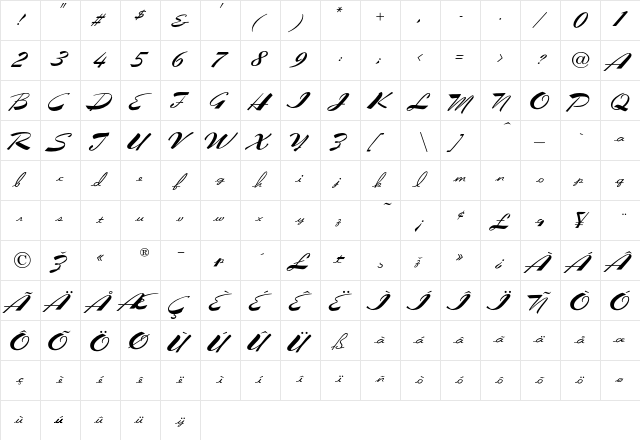
Flare Regular
| Foundry | Digitized by Dan X. Solo. Software Dover Publications, Inc |
Design Context for Flare Typeface
Flare is a composed and adaptable typeface that performs quietly and consistently across a wide range of design contexts.